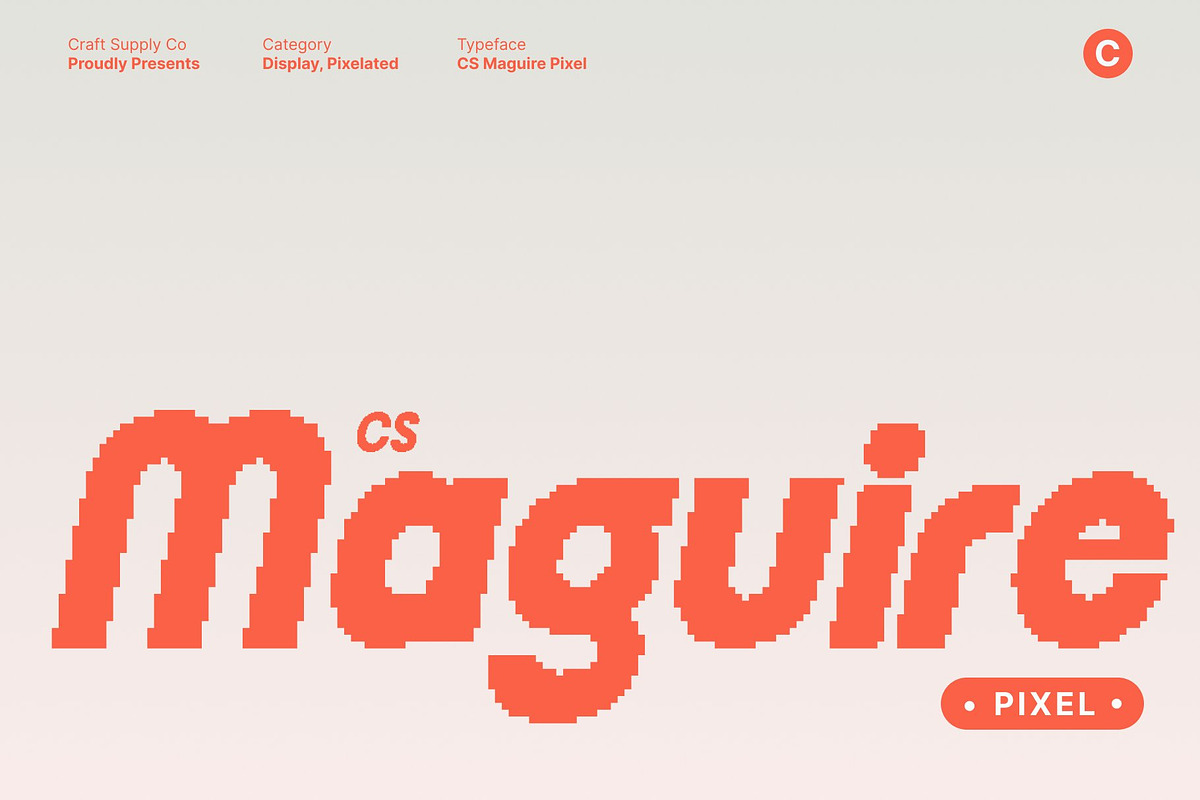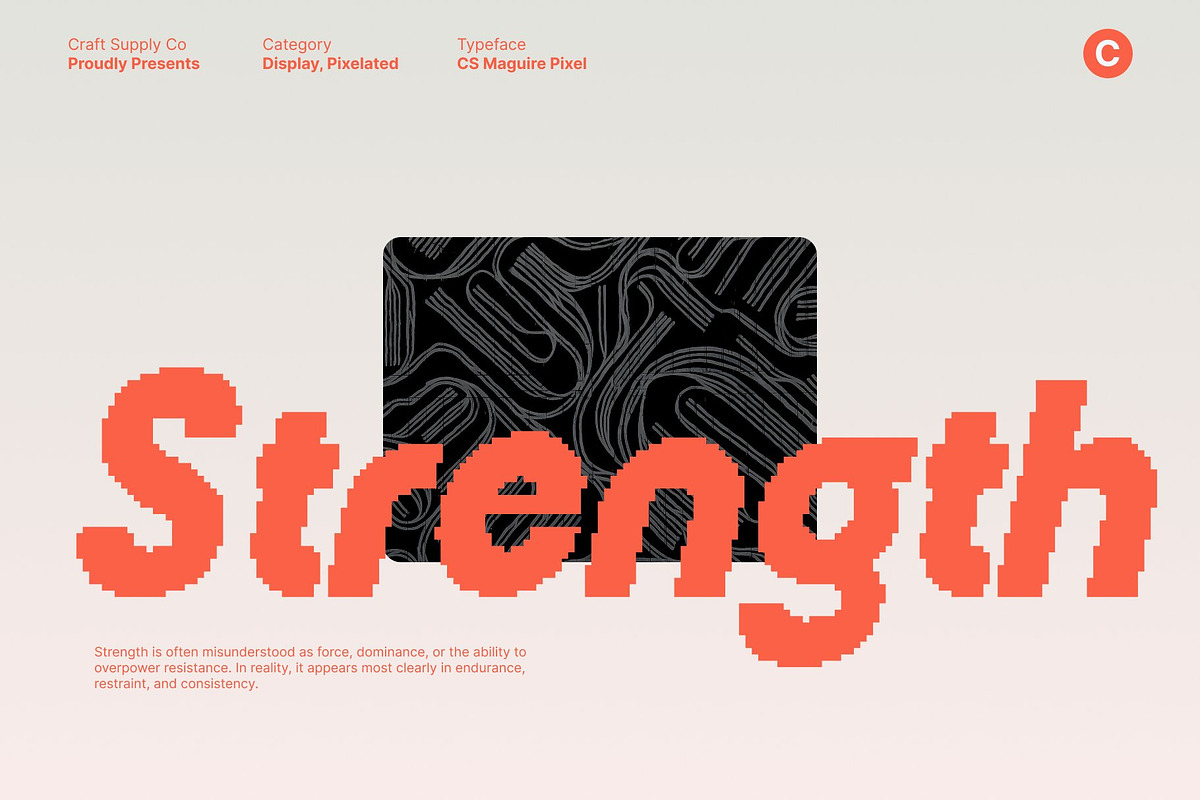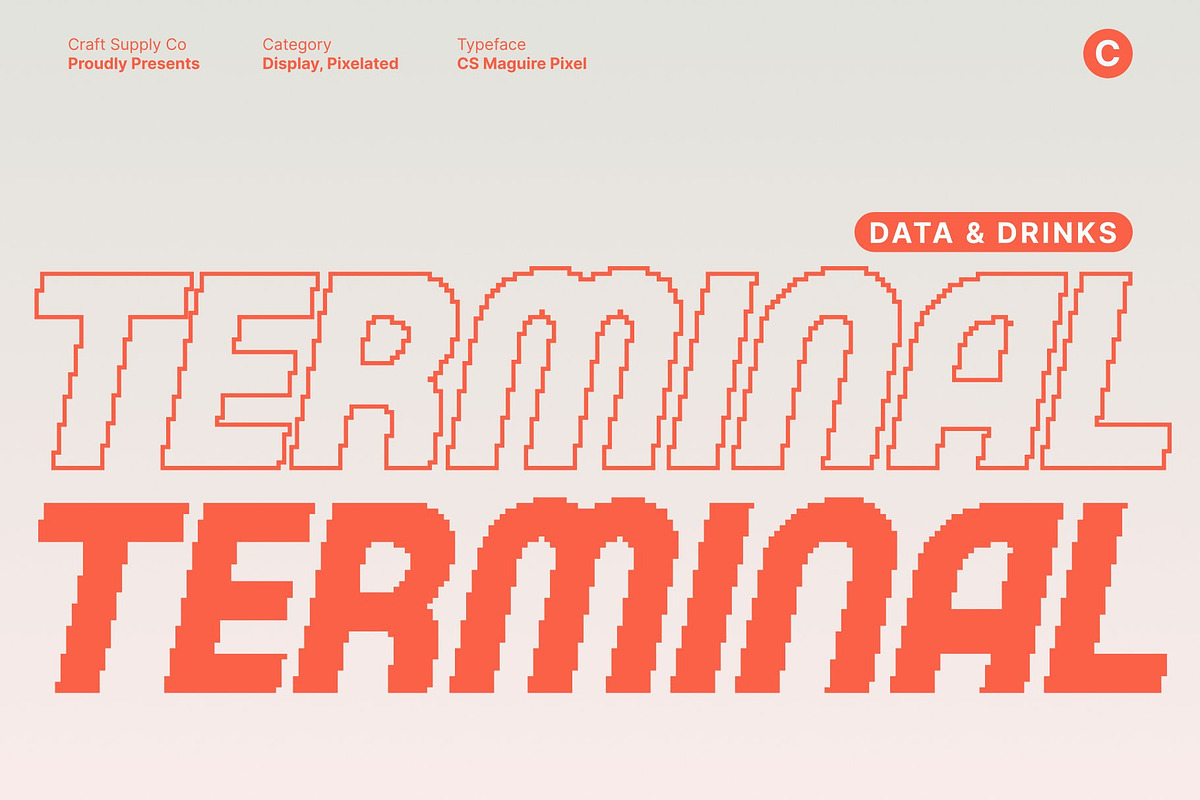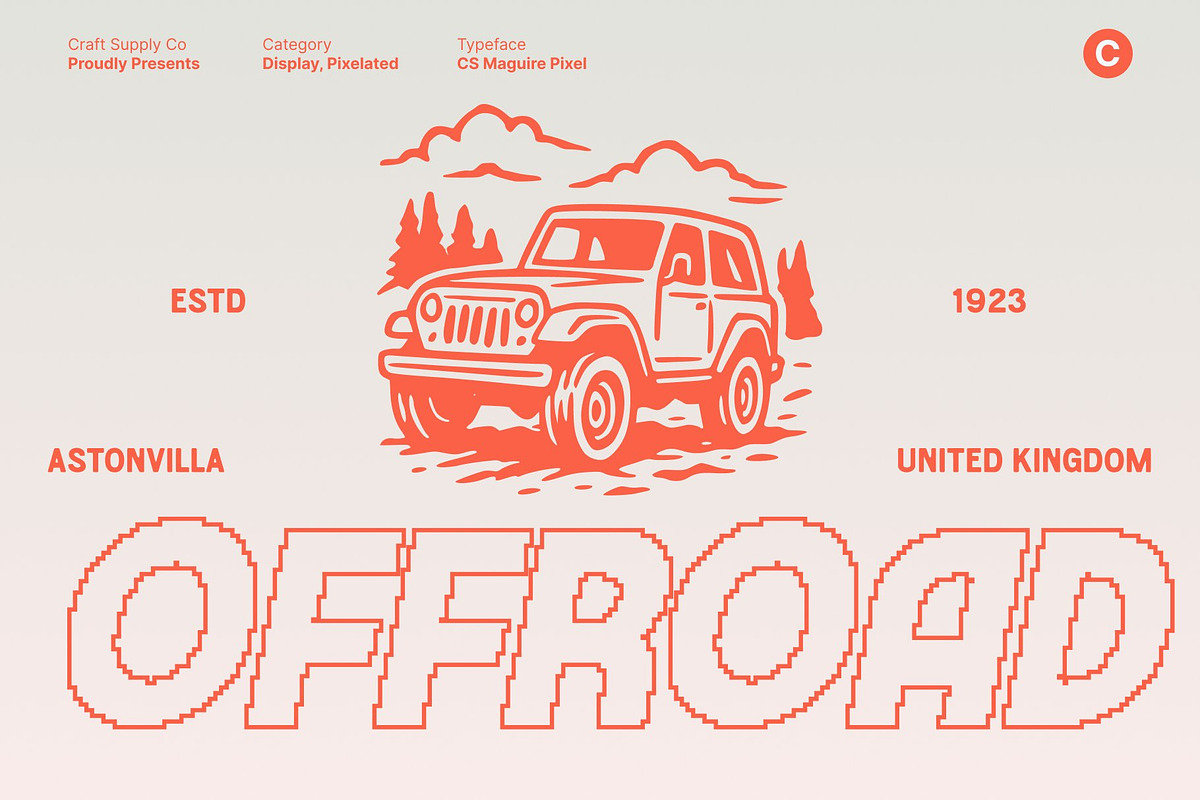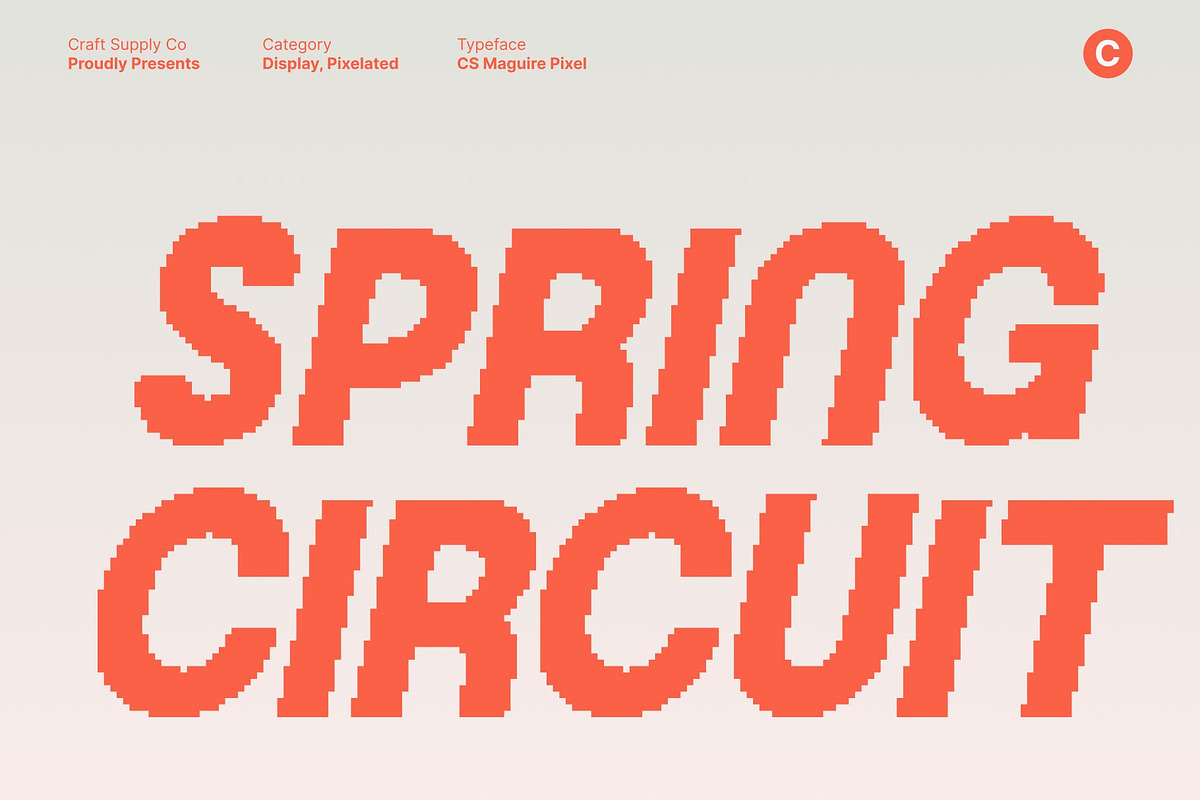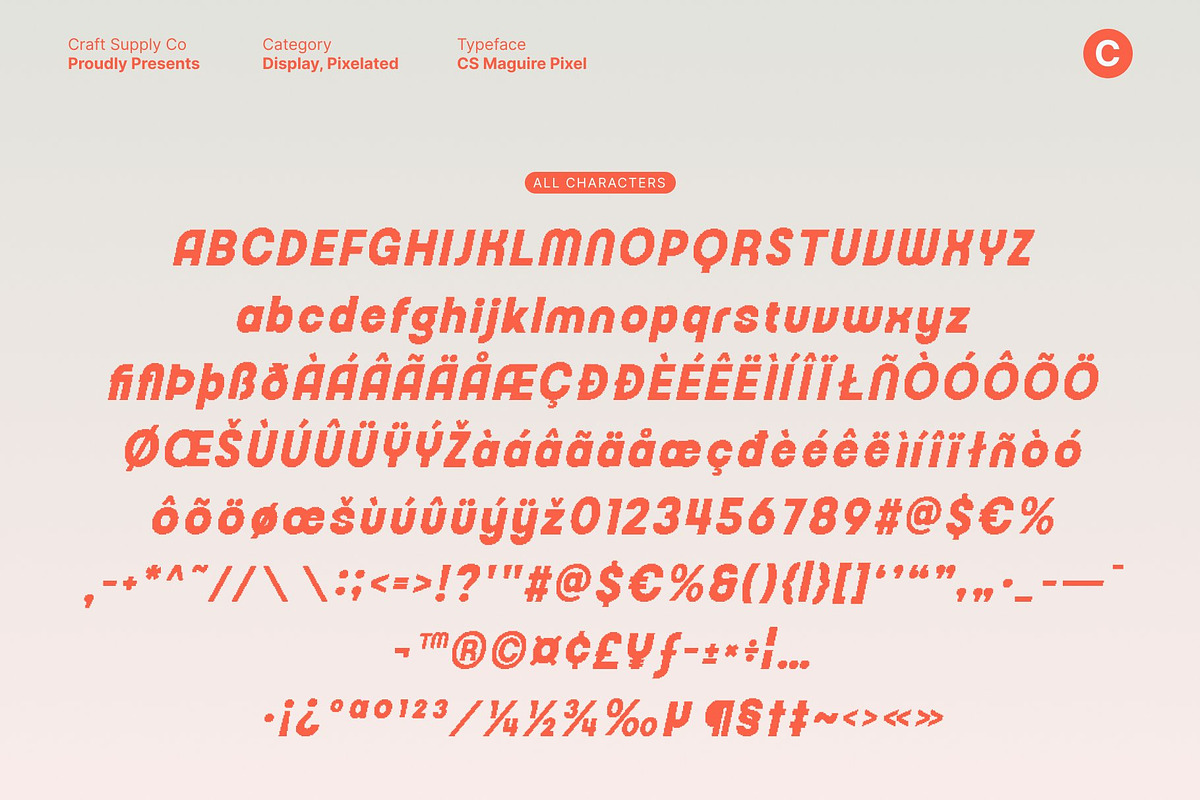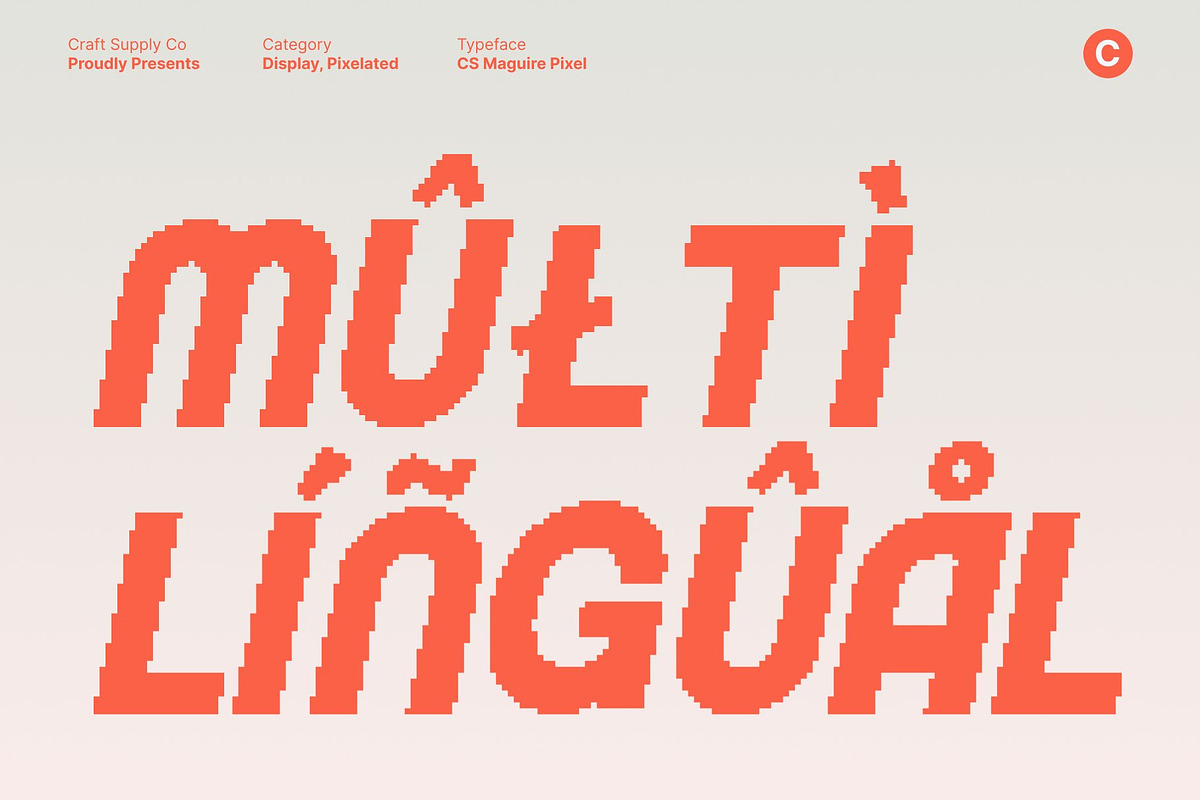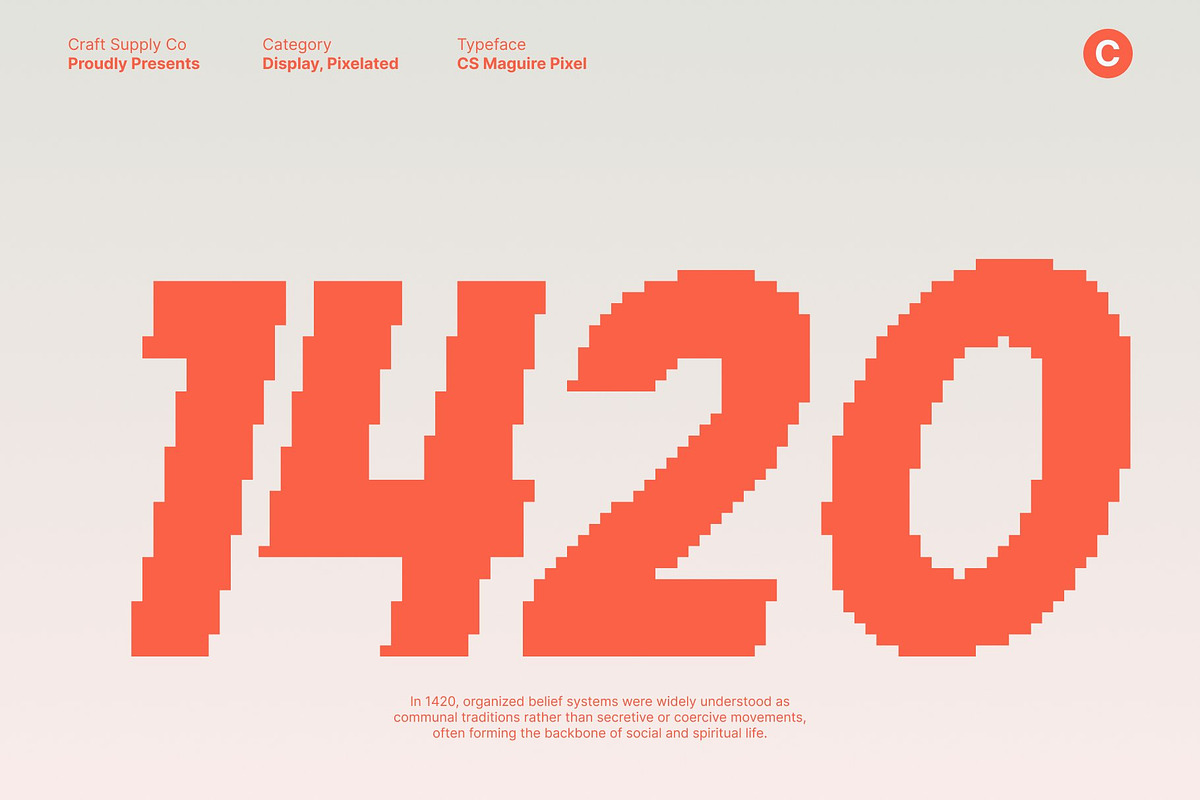
CS Maguire Pixel
CS Maguire Pixel – Retro Sans Serif with Bold 90s Digital Charm
Classic Strength with Retro Pixel Personality This is a bold sans serif display font that fuses timeless simplicity with the nostalgic energy of 90s design. Its clean, structured letterforms capture the bold confidence of retro print and advertising while integrating pixel-inspired detailing for a modern digital twist.
Sharp, Clean, and Digitally Refined With strong, uncluttered lines and balanced proportions, each character maintains clarity and readability while embracing subtle pixel structure. The crisp edges and solid construction make this font visually striking, giving it a timeless appeal with a touch of playful retro flair.
Perfect for Branding, Posters, and Retro Displays This font excels in posters, logos, packaging, and bold brand identities. Its 90s-inspired aesthetic adds personality and familiarity without overpowering the design, making it ideal for projects that want to feel both modern and nostalgically fun.
Versatile Across Media and Styles From digital interfaces and social media graphics to large-scale print and editorial layouts, this font adapts effortlessly. Its strong presence ensures headlines stand out, while its pixel-inspired details add a contemporary, nostalgic edge, making it a versatile choice for creative, retro-inspired design projects.